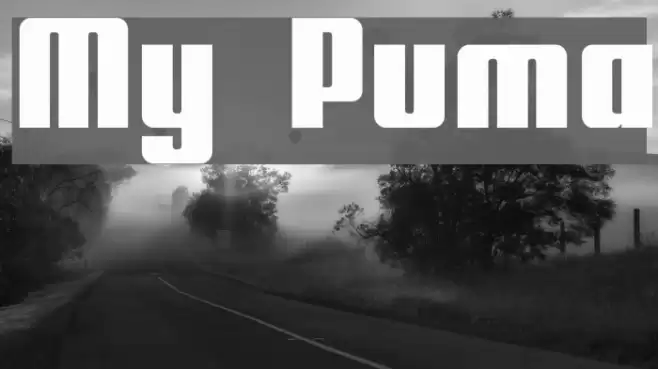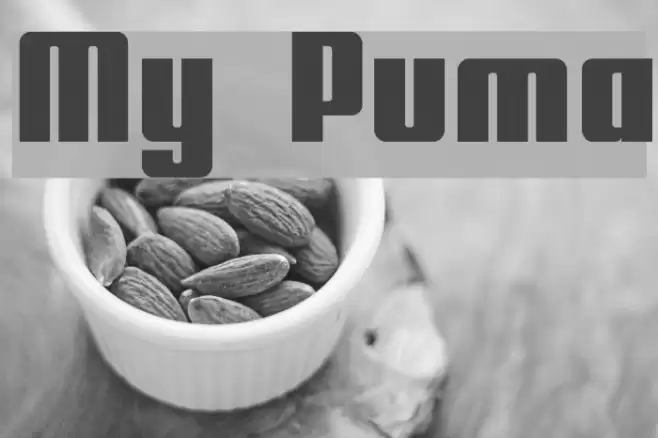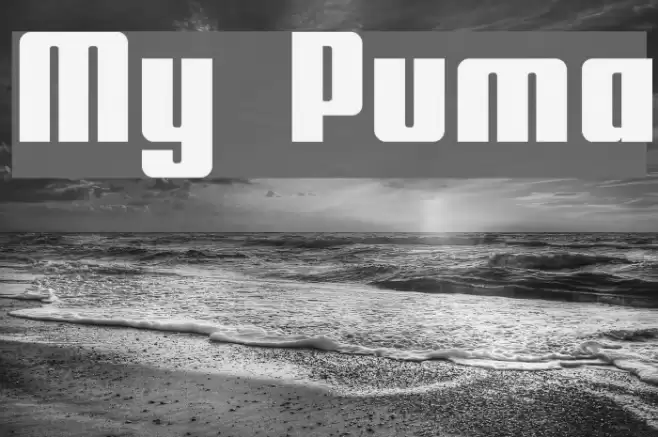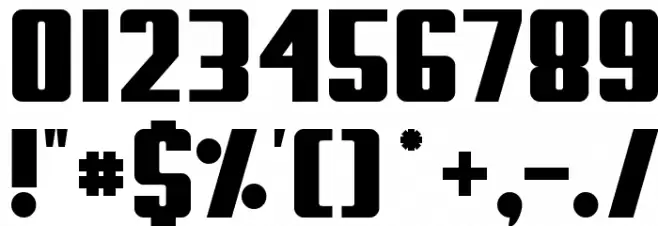
My Puma Font
My Puma Description
This font features bold, blocky characters with a strong presence, making it ideal for impactful designs. The uppercase letters are uniformly wide, with a consistent height that gives a sense of stability and strength. The lowercase letters maintain the boldness, with slightly rounded edges that soften the overall look. Numbers are equally bold, ensuring they stand out in any context. The special characters are designed to match the robust style, providing a cohesive appearance across all glyphs. This font is perfect for projects that require a commanding and assertive visual element.
A bold, blocky font with a strong, impactful presence from Uncategorized fonts.
- Proposed Projects: Ideal for posters, headlines, branding, and any design needing a bold statement.